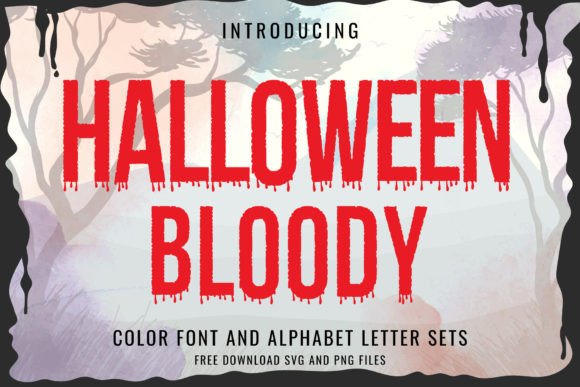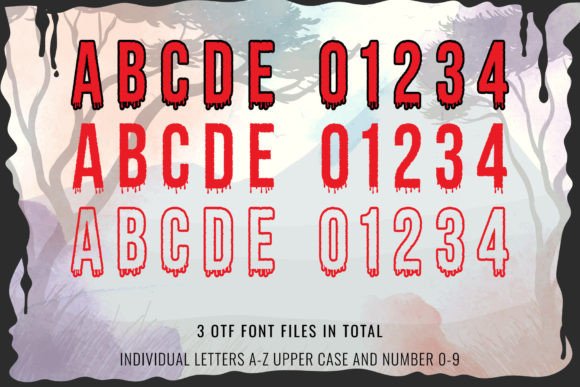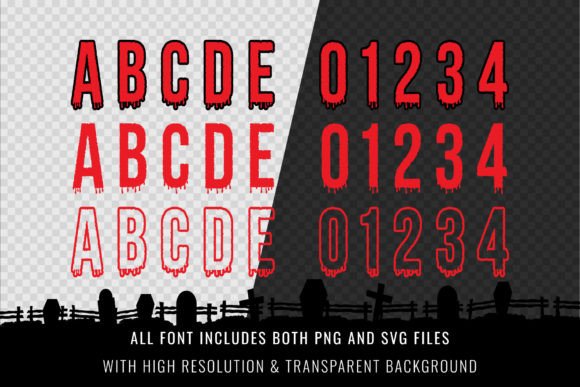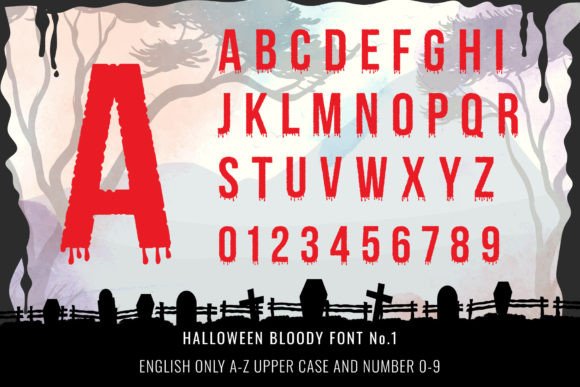
Halloween Bloody Font
About the Halloween Bloody Font
Crafted with precision, the Halloween Bloody Font is ready to bring your ideas to life. Halloween Bloody is a spine-chilling Halloween font that sends shivers down your spine. Each letter stands tall and bold, written in blood, this terrifying font perfectly captures the essence of the ghosts. Use it for haunted house posters, eerie party invitations, or any Halloween-themed project to give your text a bone-chilling touch that will make your audience scream with delight!
This font’s bold, aggressive style is ideal for headlines, posters, and short, impactful text on packaging or branding related to Halloween or horror-themed products. Avoid using it for body text or long paragraphs; its weighty design is not legible at smaller sizes.
Halloween Bloody Font pairs well with clean, minimalist sans-serif fonts like Open Sans or Lato for contrast, balancing its dramatic character. For a more vintage feel, consider pairing it with a serif like Playfair Display. Avoid pairing it with other highly decorative or overly stylized fonts, as this would create visual clutter.
The overall personality is aggressive and attention-grabbing, perfectly suited for brands or projects aiming for a bold, spooky, or thrilling aesthetic.